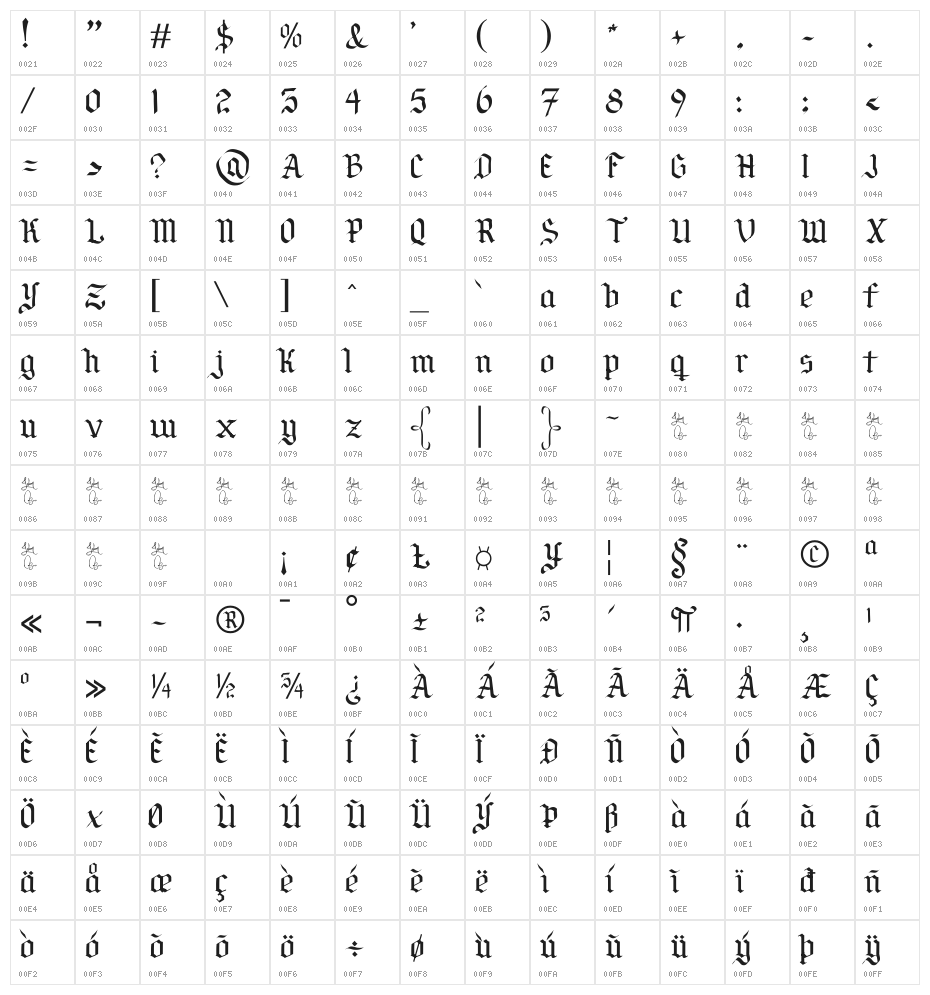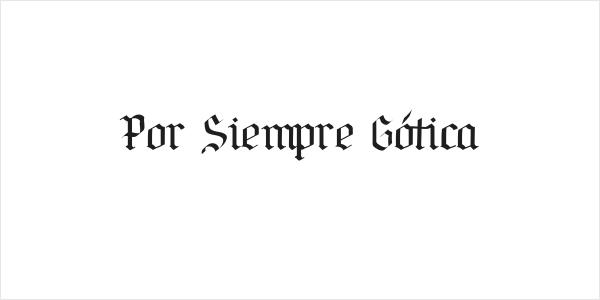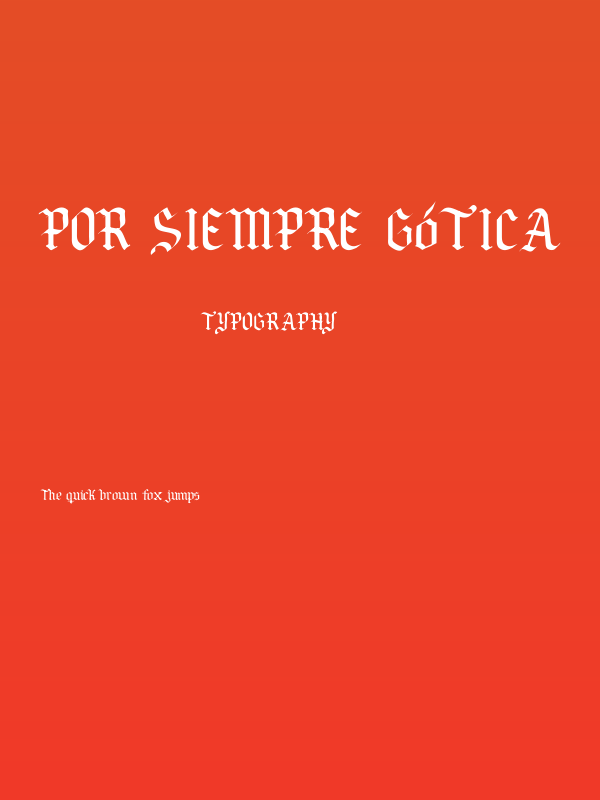
Por Siempre Gótica Font
Por Siempre Gótica Description
This font exudes a classic Gothic style, characterized by its intricate and ornate letterforms. The sharp angles and bold strokes give it a commanding presence, reminiscent of medieval script. Each character is meticulously crafted, with high contrast between thick and thin lines, enhancing its dramatic flair. The uppercase letters are particularly striking, with elaborate serifs and flourishes that add a touch of elegance. The lowercase letters maintain the same level of detail, ensuring consistency across the typeface. Numbers and special characters are equally well-designed, making this font versatile for various applications.
| Use Case | Headlines, Logos, Decorative purposes |
| Proposed Projects | Ideal for projects that require a historical or medieval aesthetic, such as book covers, posters, or branding for themed events. |